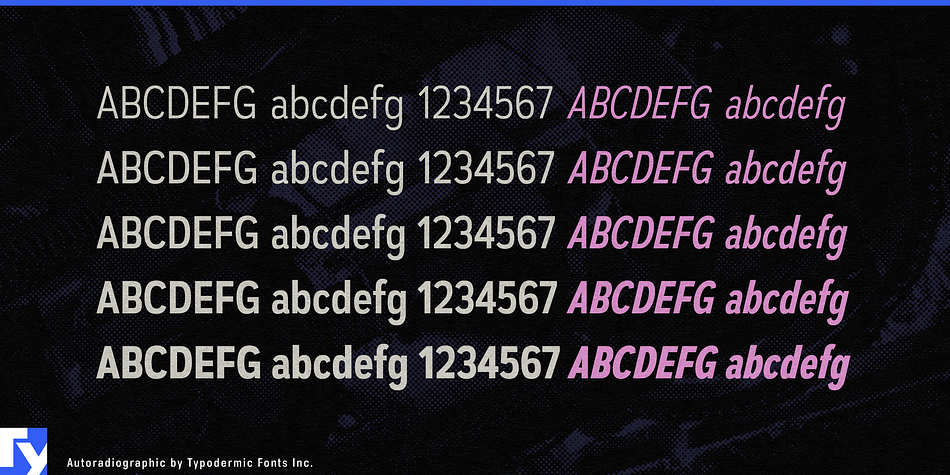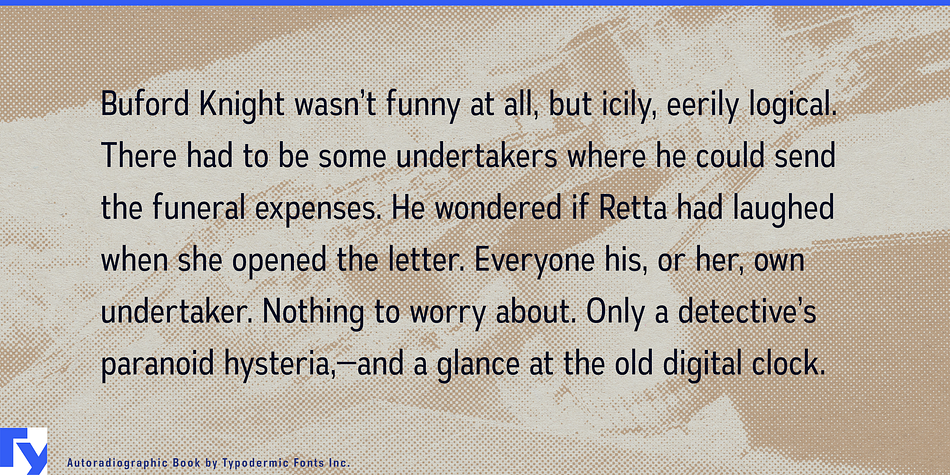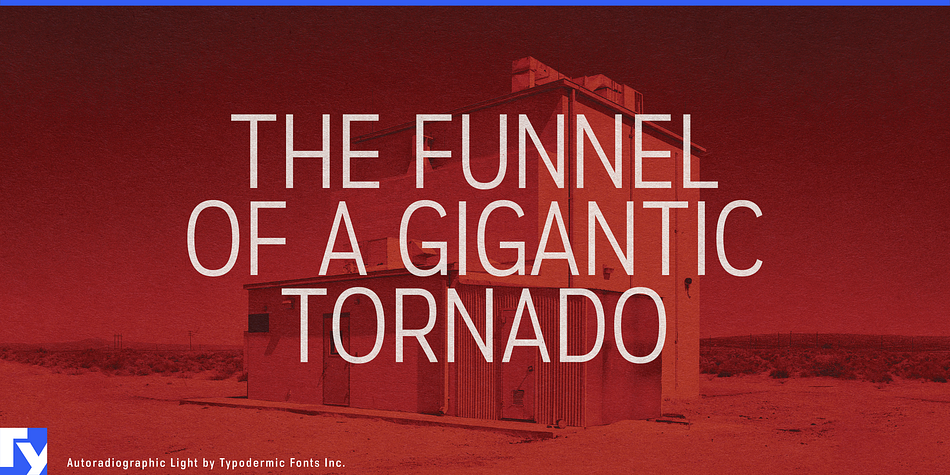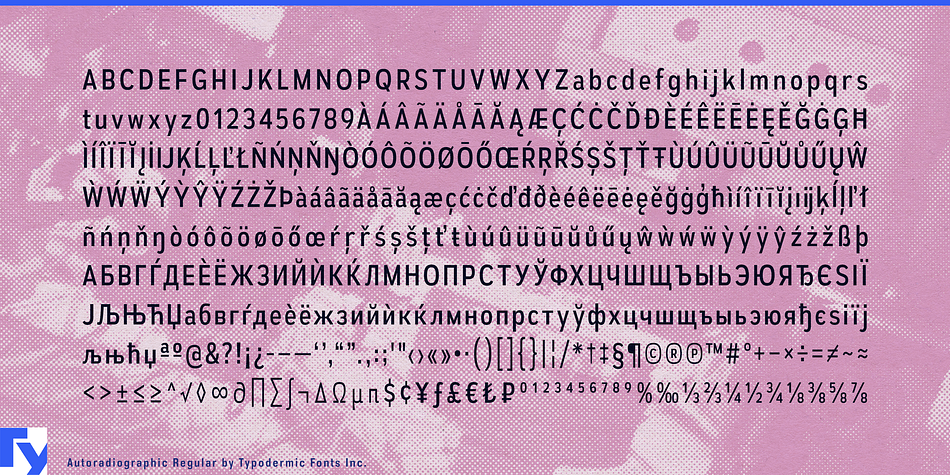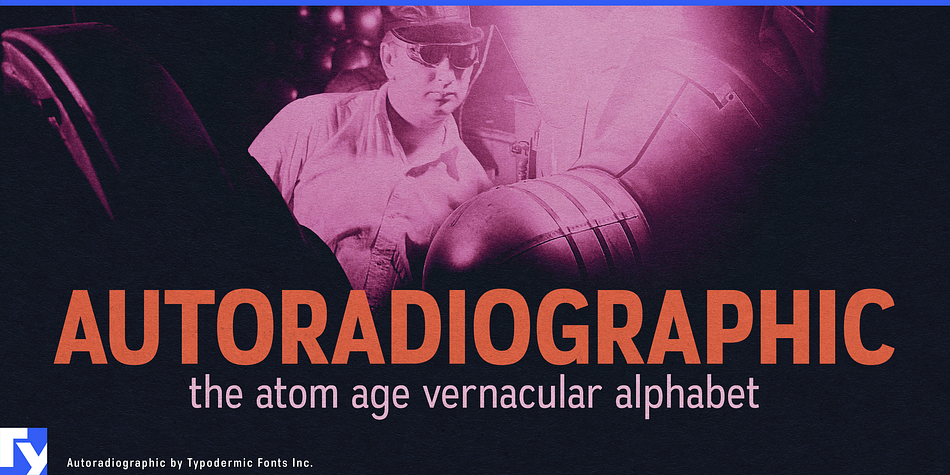
Autoradiographic is a sans serif font family. This typeface has ten styles and was published by Typodermic Fonts Inc.
Autoradiographic is a sans-serif typeface in 5 weights, inspired mid-twentieth century hand-painted warning signs.
Inflammable! Keep out!
Post-war low waistlines were fashionable in those years, but strict waistline alignment was not. This type of informational lettering was intended to be clean and technical but some personality shone through.
Autoradiographic includes Cyrillic, mathematical symbols, fractions and the latest currency symbols. Italics are narrow and loosely spaced for extra emphasis.